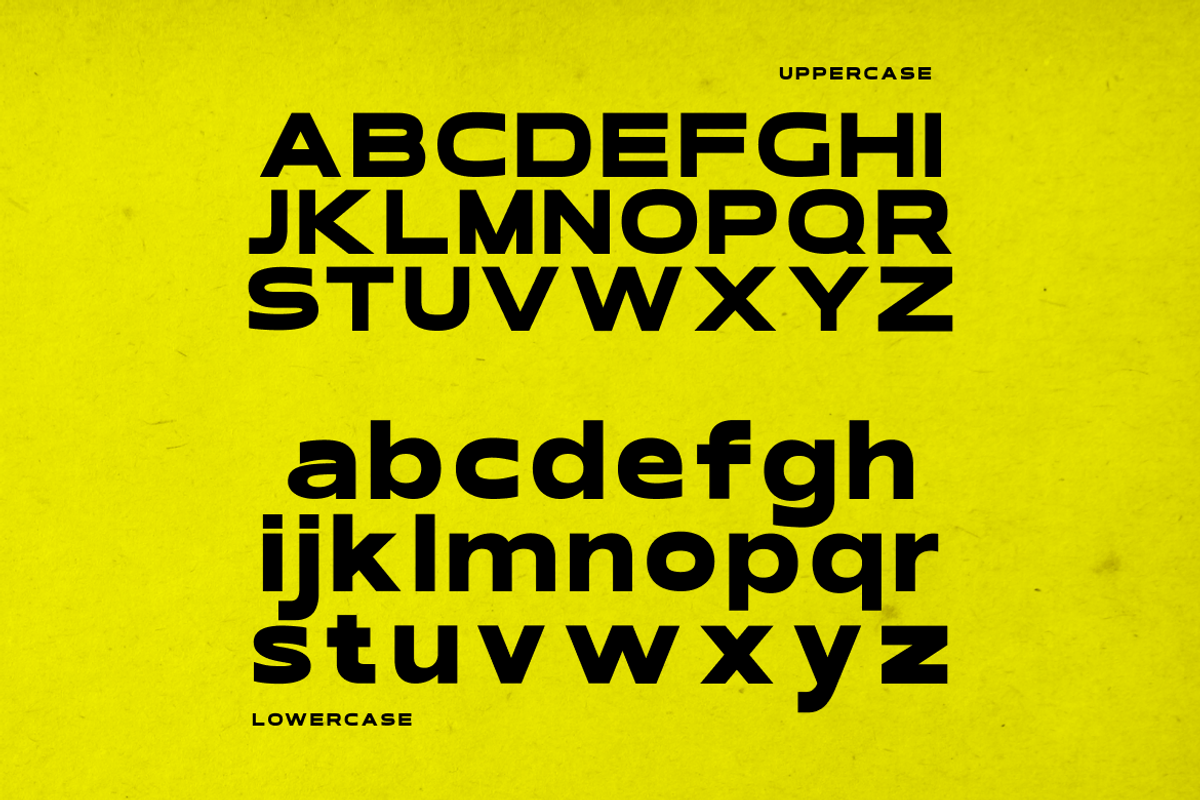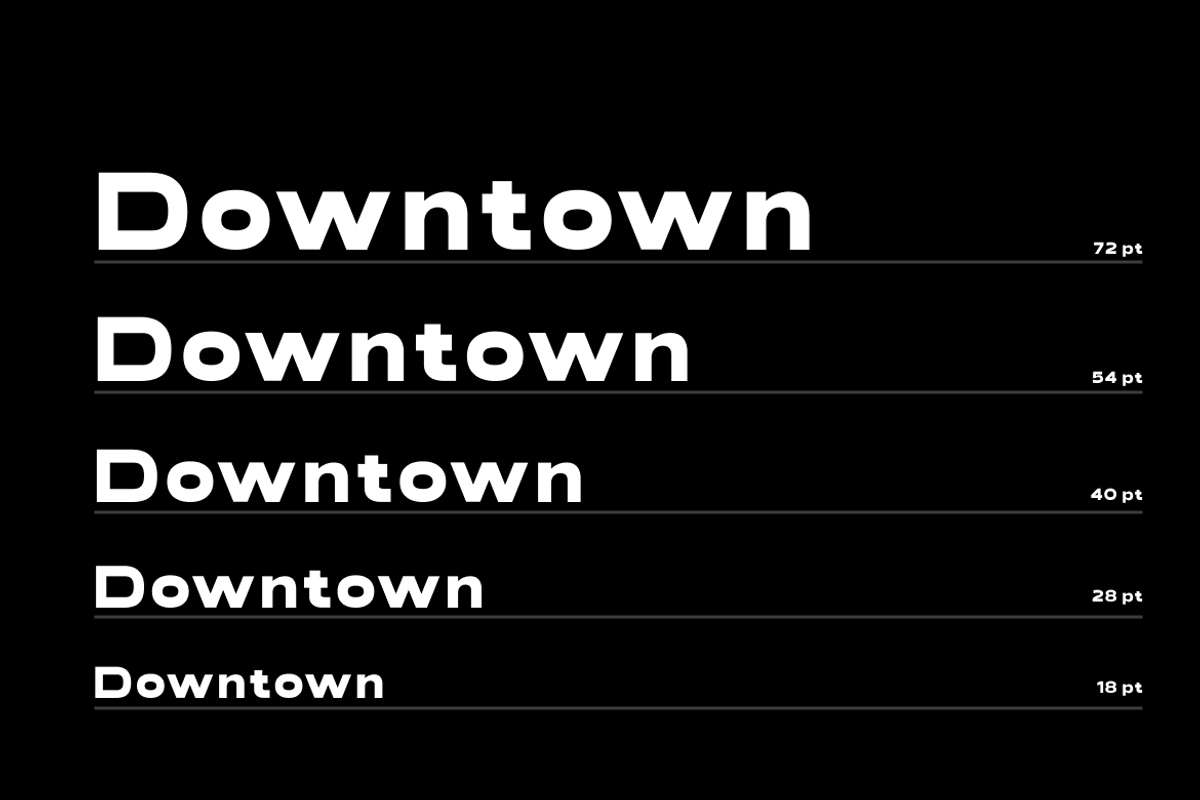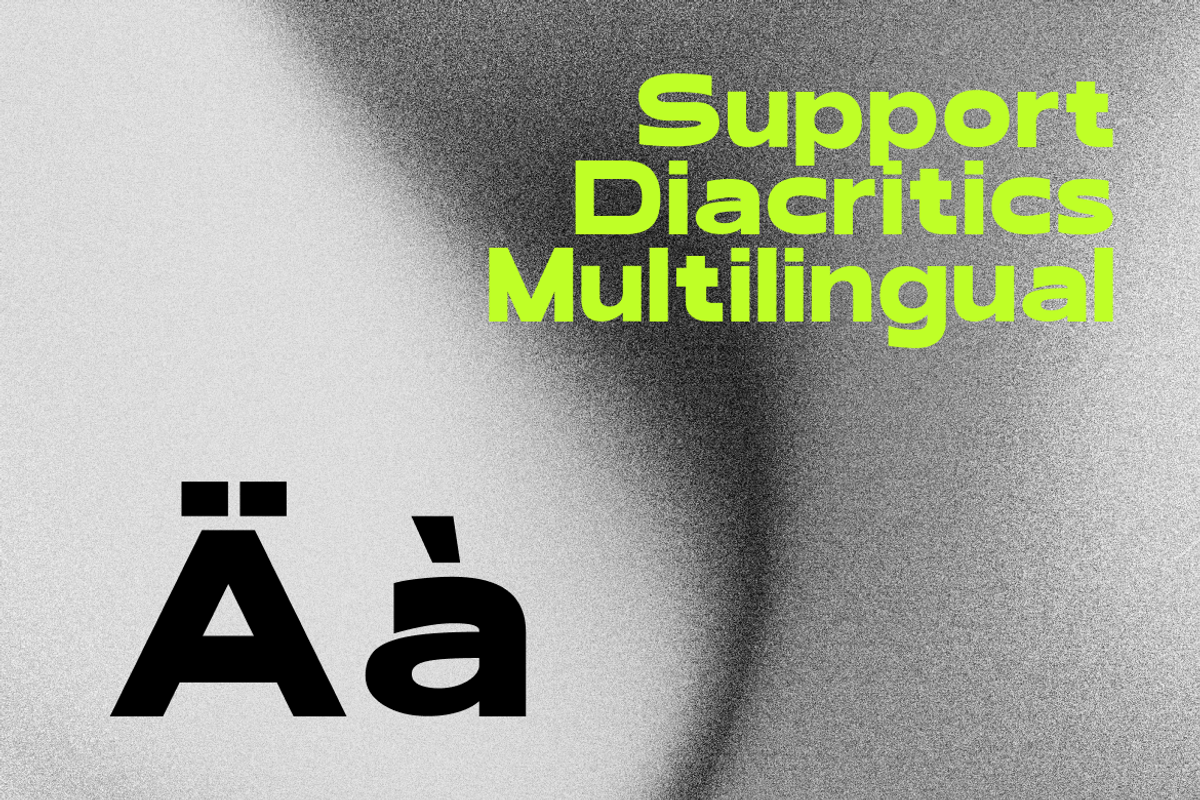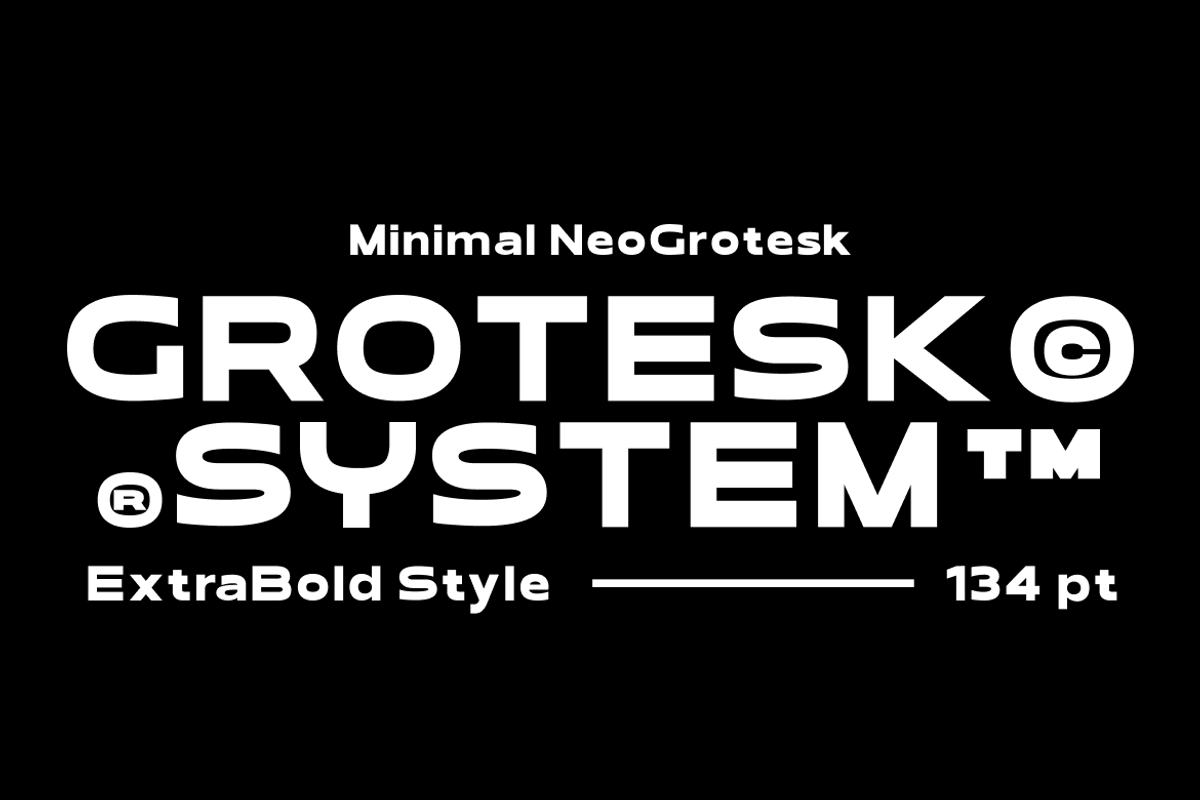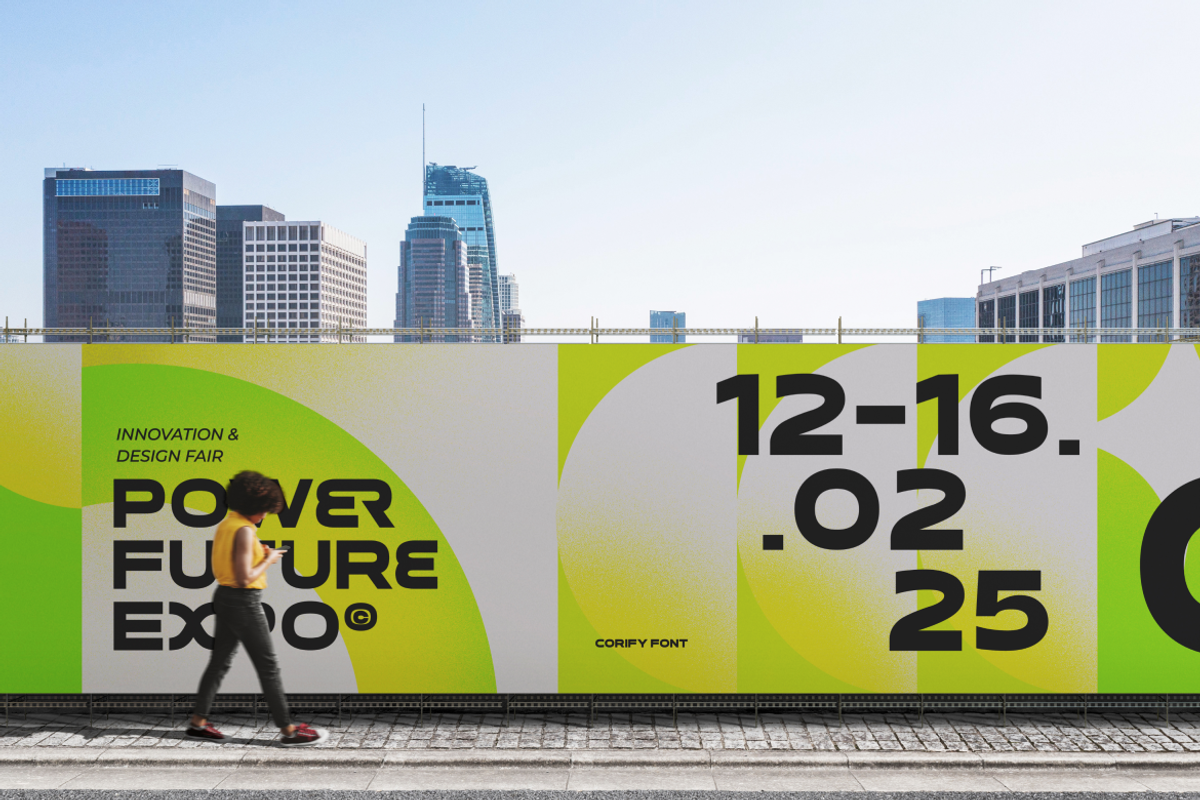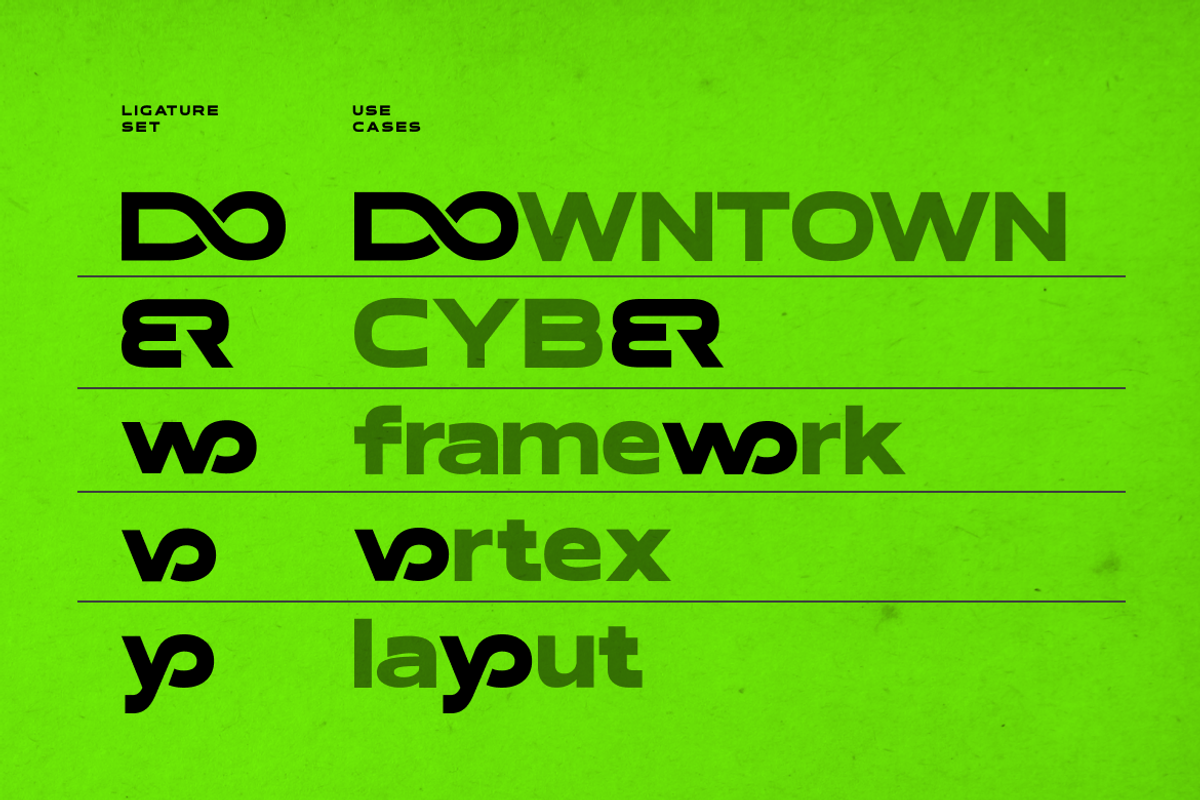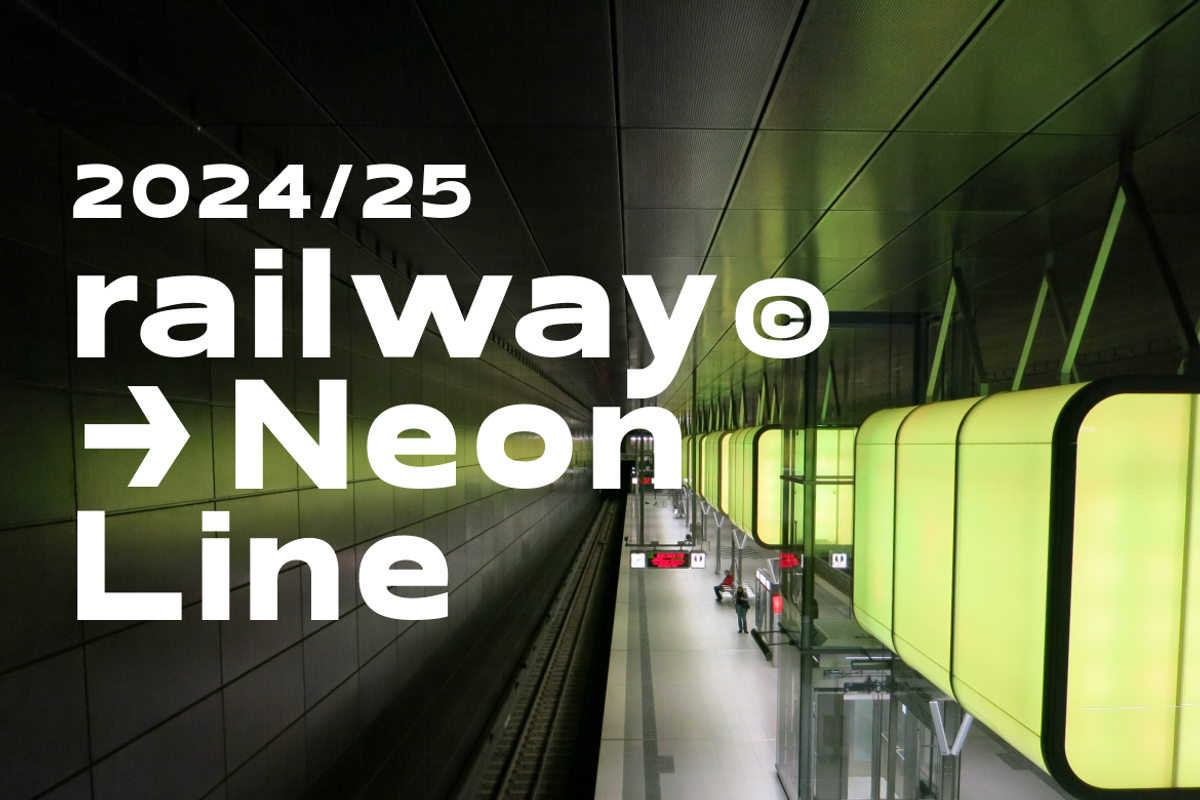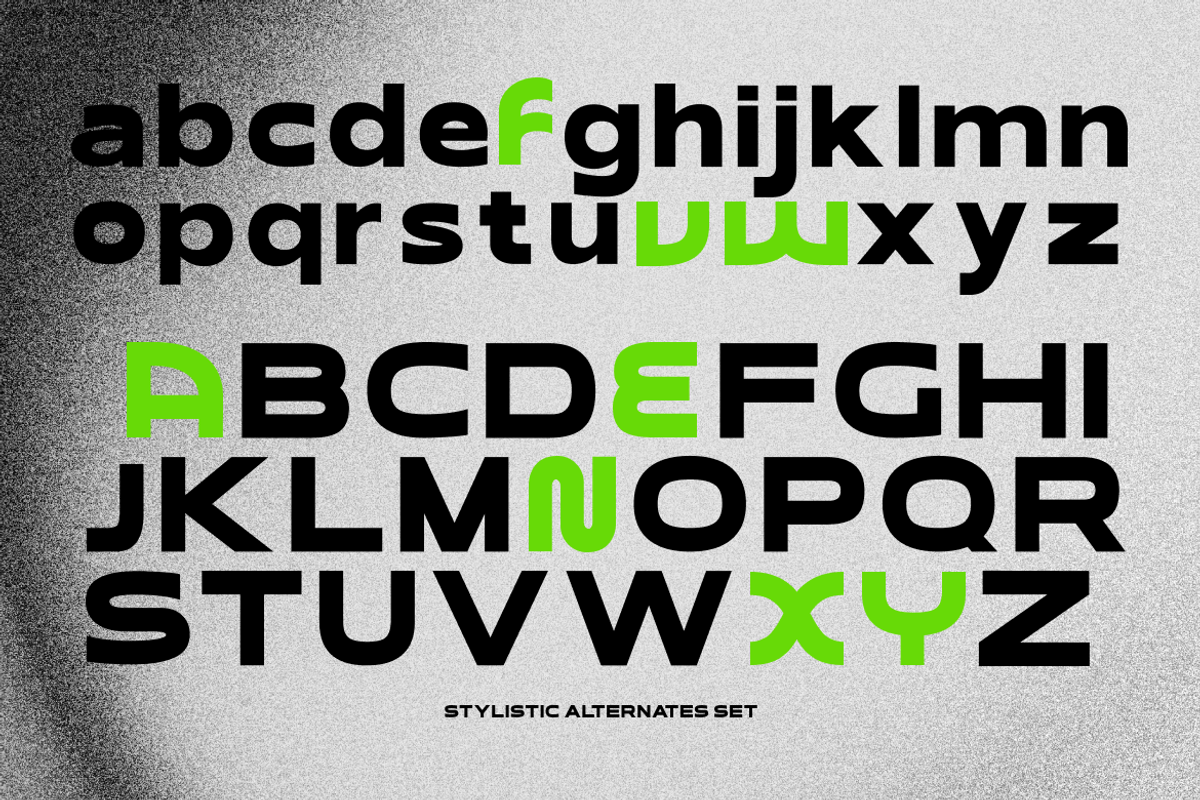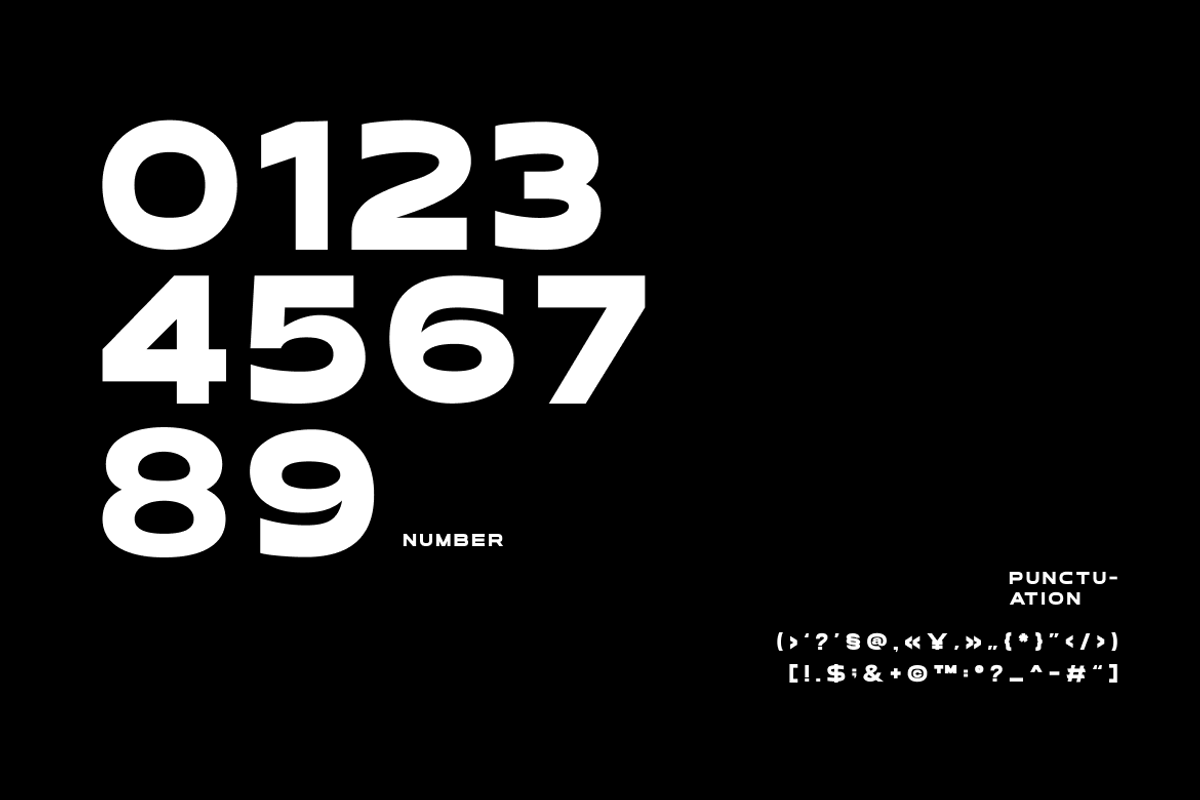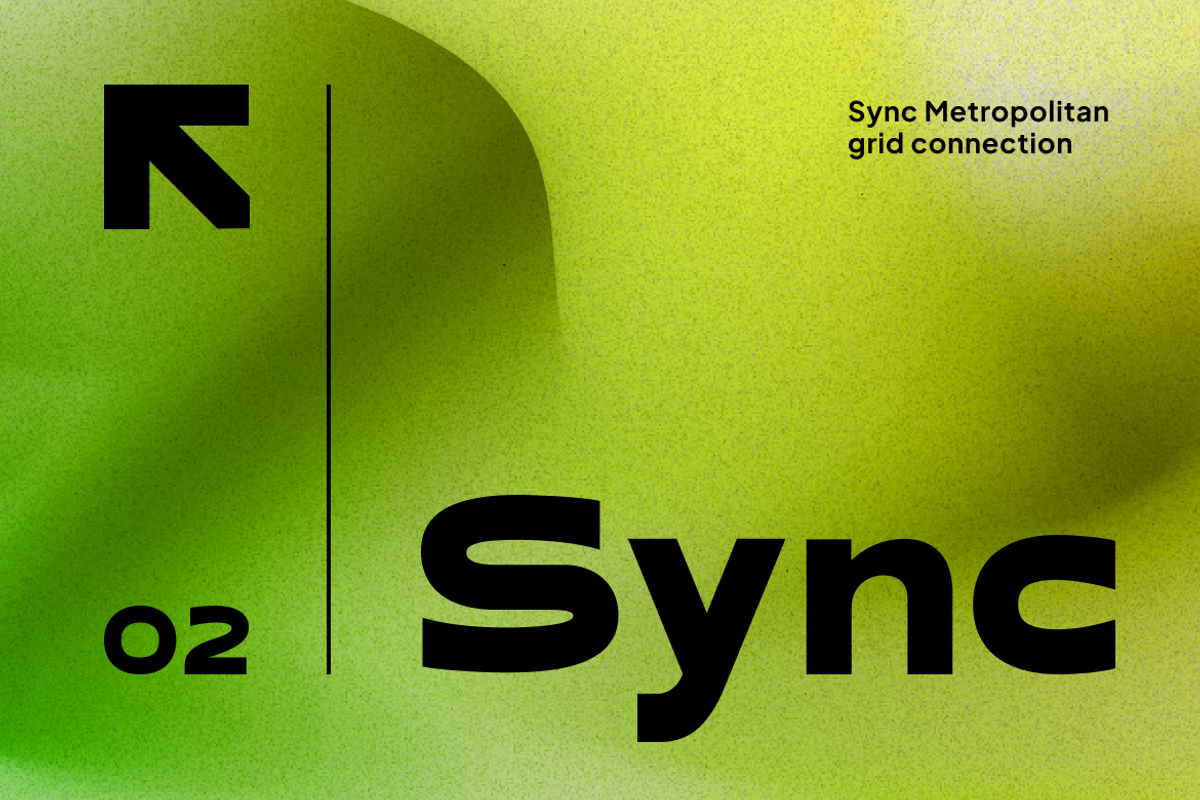
Corify Sans Geometric Font
Corify is a bold geometric sans serif font designed with precision, versatility, and a strong modern aesthetic. Its clean construction and innovative alternate forms make it ideal for both digital and print use. Featuring unique directional ligatures and a futuristic visual tone, Corify merges functional design with experimental geometry to create a striking and adaptable type system.
Relevance and Use Cases is perfect for branding identity, technology startups, editorial headlines, website UI, motion graphics, packaging design, modern advertising, and professional creative projects that emphasize clarity and innovation.
- Modern geometric sans serif with bold, structured letterforms
- Clean circular shapes and sharp angles creating a strong visual presence
- Minimal contrast with uniform stroke weight for clarity and consistency
- Subtle rounded corners balancing rigidity with a contemporary feel
- Versatile spacing optimized for impactful headlines and clear digital layouts
- Modern brand identity systems with bold and confident visual direction
- Tech, startup, and digital product UI/UX interfaces
- Contemporary posters, headlines, and striking typographic layouts
- Product packaging with strong, clean, and futuristic appeal
- Social media graphics and marketing visuals with high visual impact
Empower your design with Corify Geometric Sans that unites precision